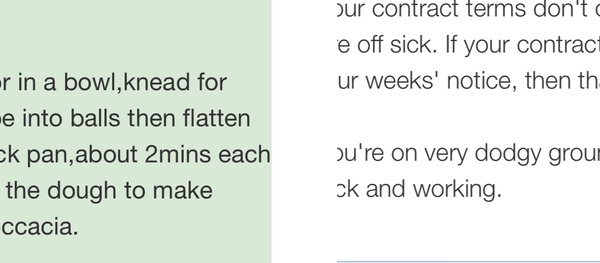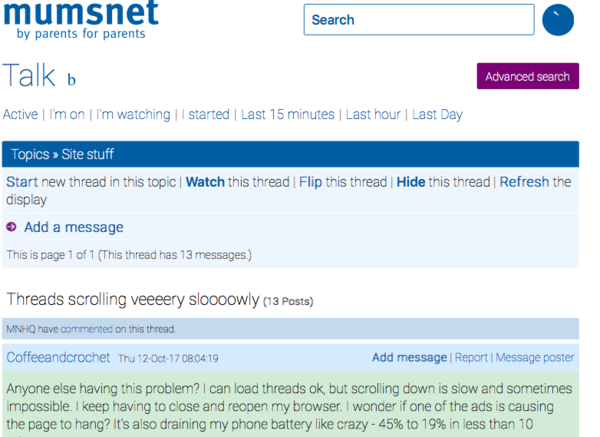
Has the font changed?
If so, can someone direct me to an idiot's guide on how to reinstate the old, more robust/clearly visible font? I'm struggling with this fainter (if larger) new font!
I have a lowercase 'b' next to the Talk heading, which makes me wonder if I've somehow fallen into a twilight beta-testing zone. :)
I'm pretty sure it has, here's a comparison from before and after. It's much harder to read and focus.
Hi both, could you try refreshing the page and let us know what happens?
No change.
Have you updated your ios? Mine changed this morning straight after I’d updated.
Yes, and that would make sense with the timing. Grr.
Mine is back to normal today, which is lovely!
No iOS update here, but also no 'b' next to the talk icon today. I'm getting used to new varifocals and really struggling with faint fonts, so I'm glad normal service resumed, for whatever reason. :)